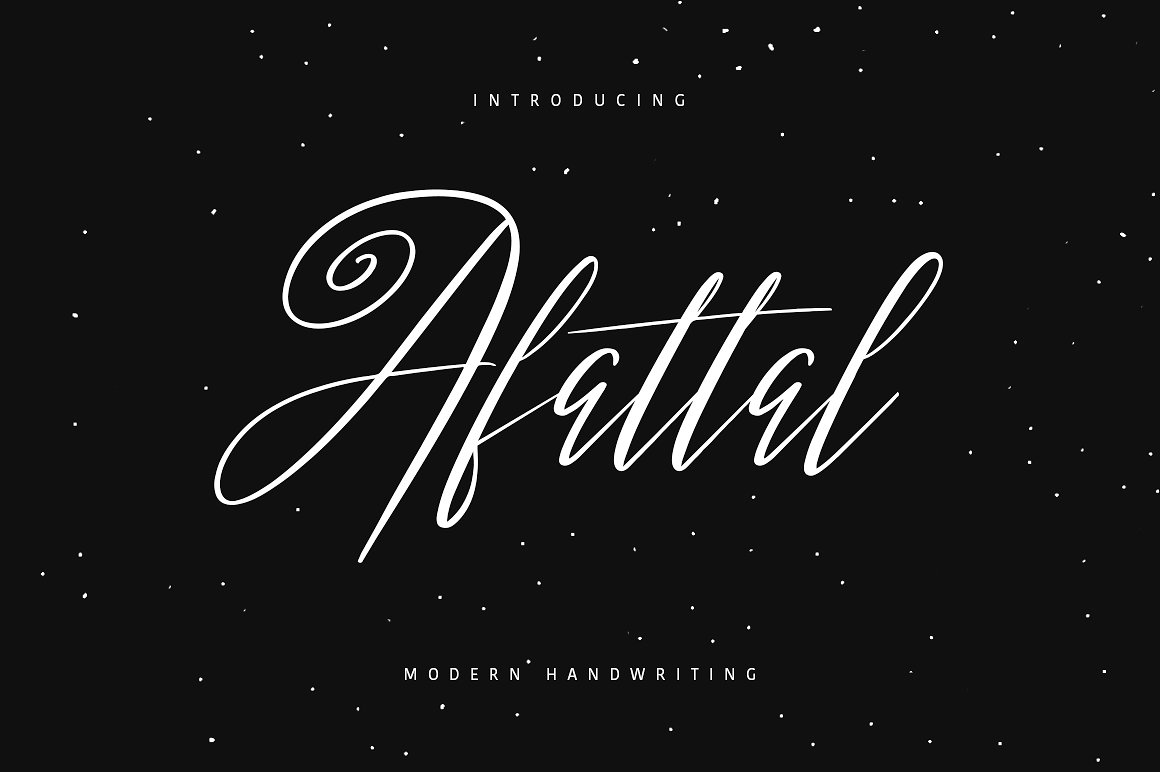
Afattal Script Font
Give your designs an authentic handcrafted feel. “Afattal Typeface” is perfectly suited to signature, stationery, logo, typography quotes, magazine or book cover, website header, clothing, branding, packaging design and more.
| Classification: | Calligraphy Fonts, Handwritten Fonts, Script Fonts |